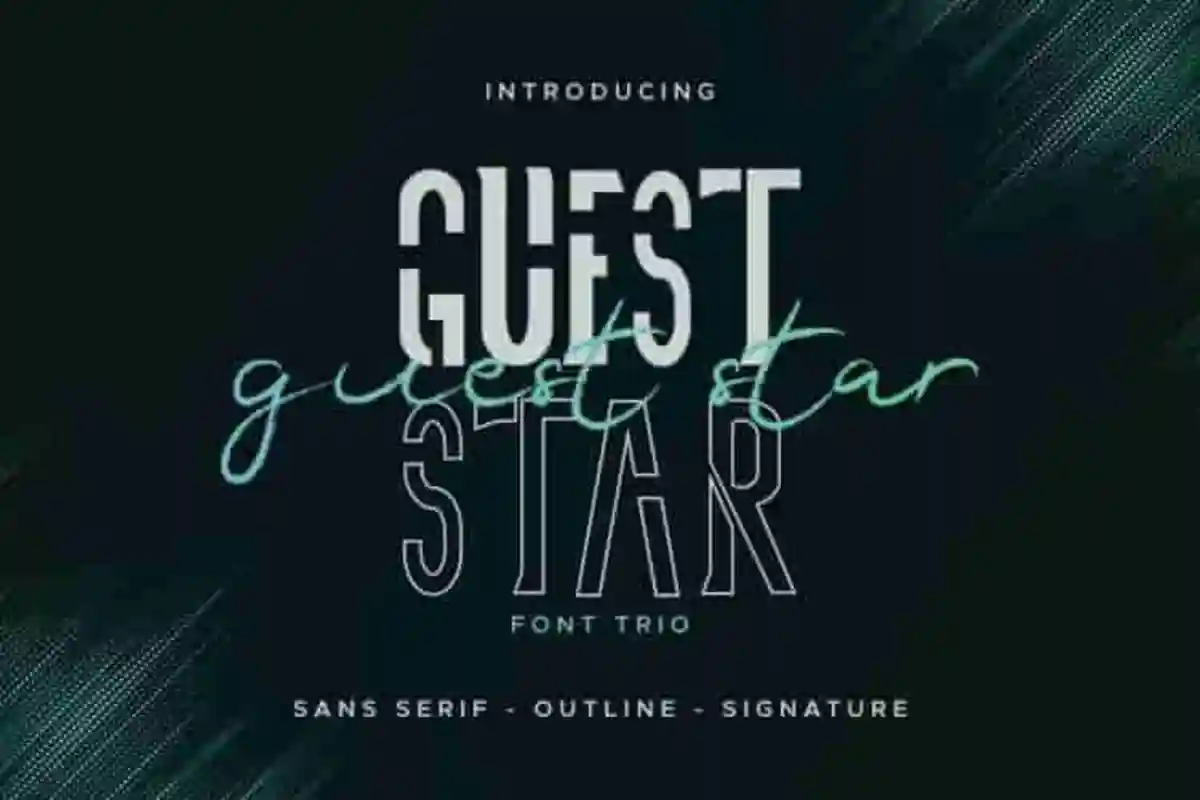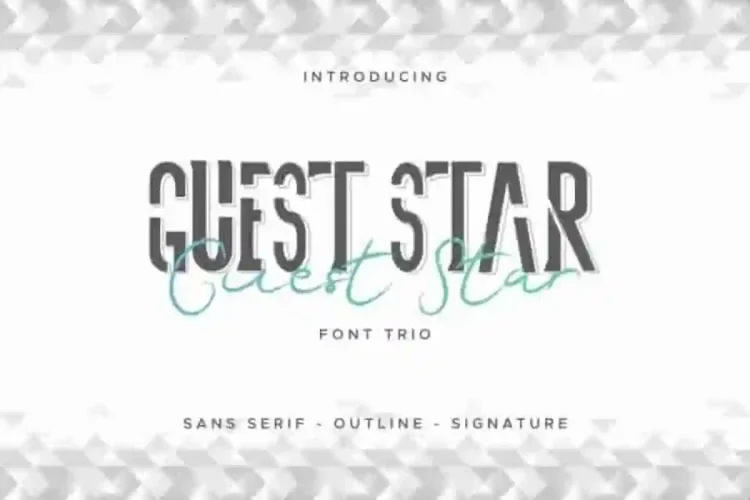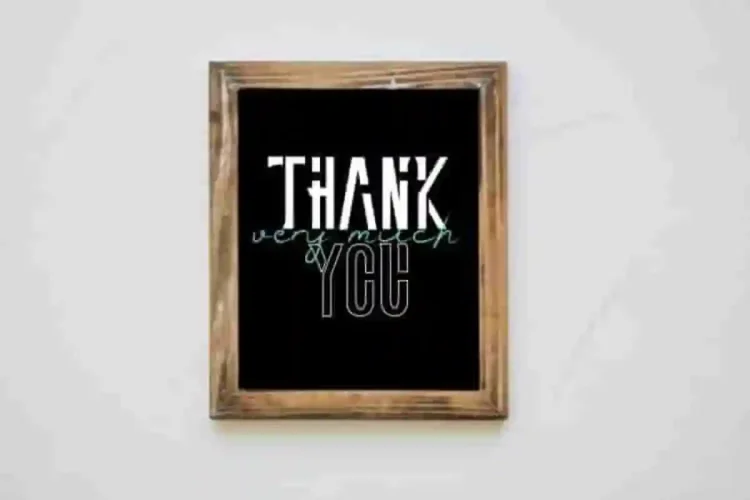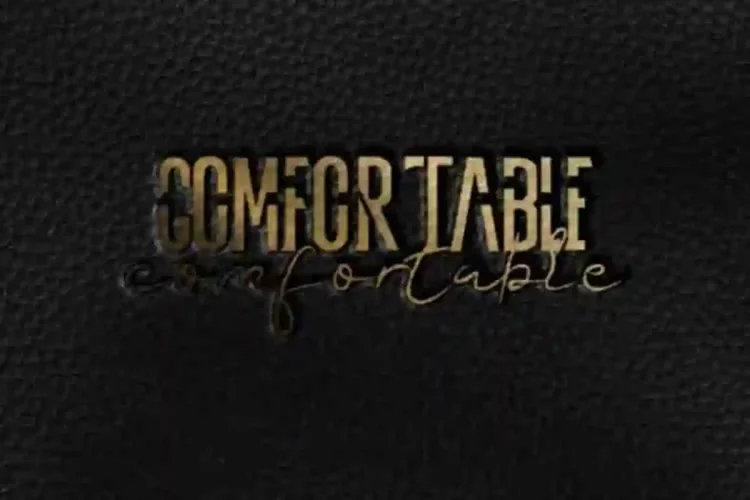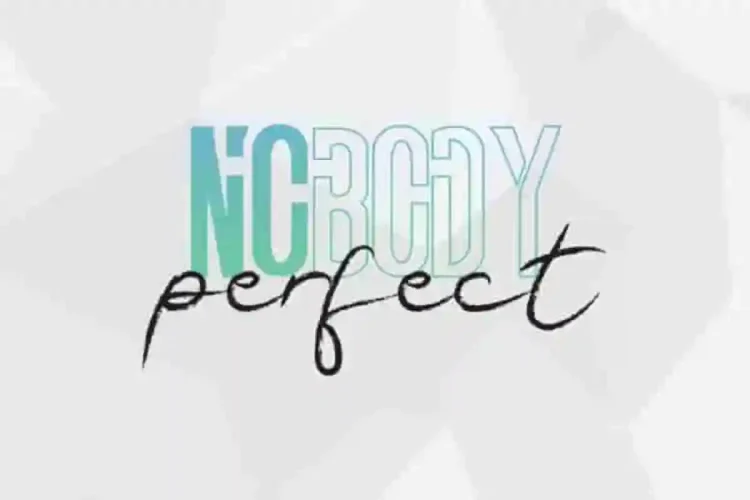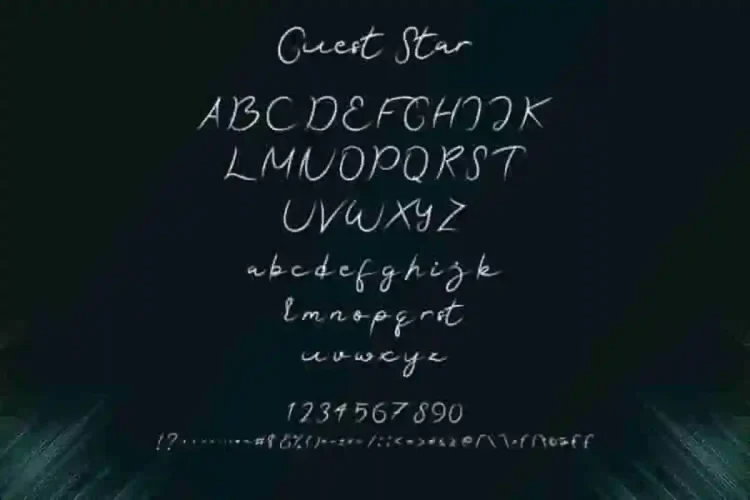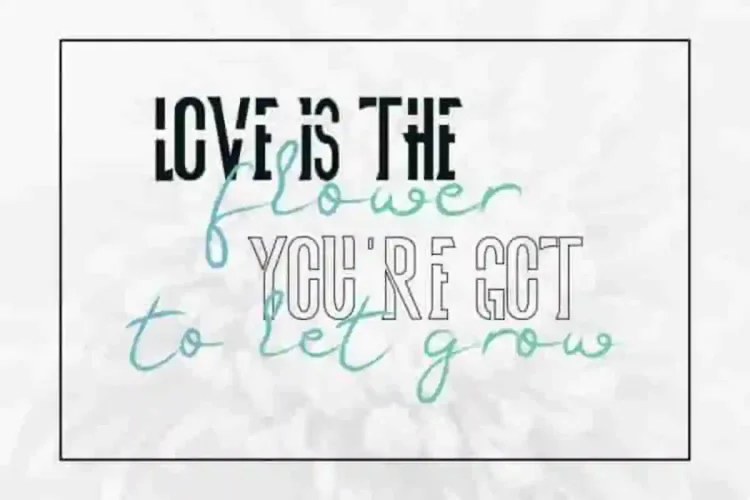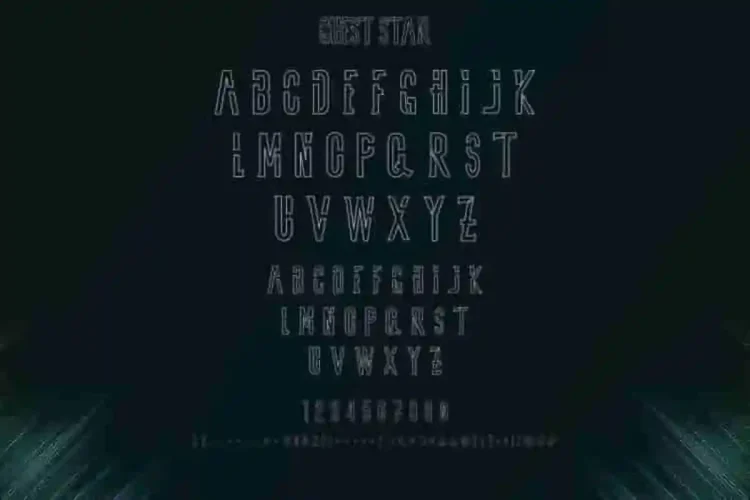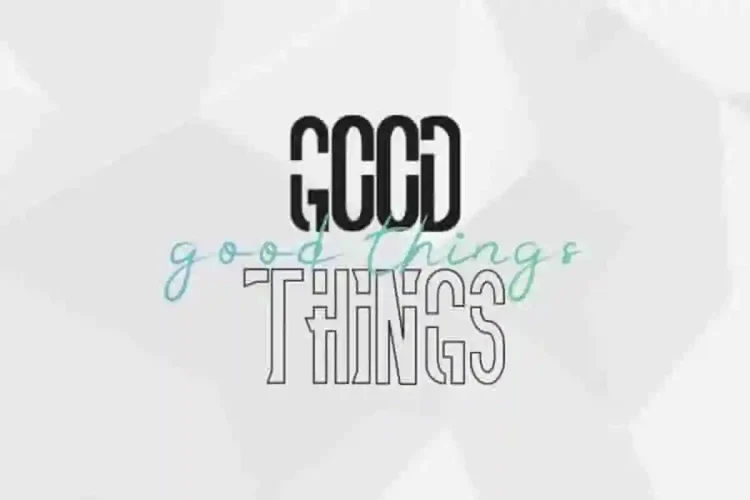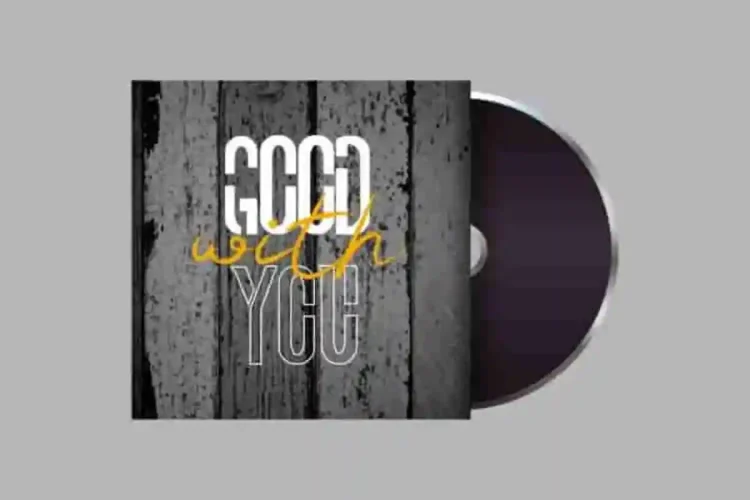
Guest Star Modern Font Duo
Guest Star Modern Font Duo is a Sans Serif font, freshly made from our Studio here in Indonesia. The artists/designers of this beautiful tyeface is Aghnia, Yasri and Sarah Suci.
Guest Star Modern Font Duo is a font duo typeface with signature style and display futuristic style. This font has a stunning characters set, perfectly managed with well spaced and kerning.
Guest Star Modern Font Duo will be great for any projects including : branding, logo, stationery, business card, signage, flyer, brochure etc. Almost all industries will be match for this typeface: wedding, events, real estate, architect, law firm, florist, gardening, makeup artist, travel, hotel, musician etc